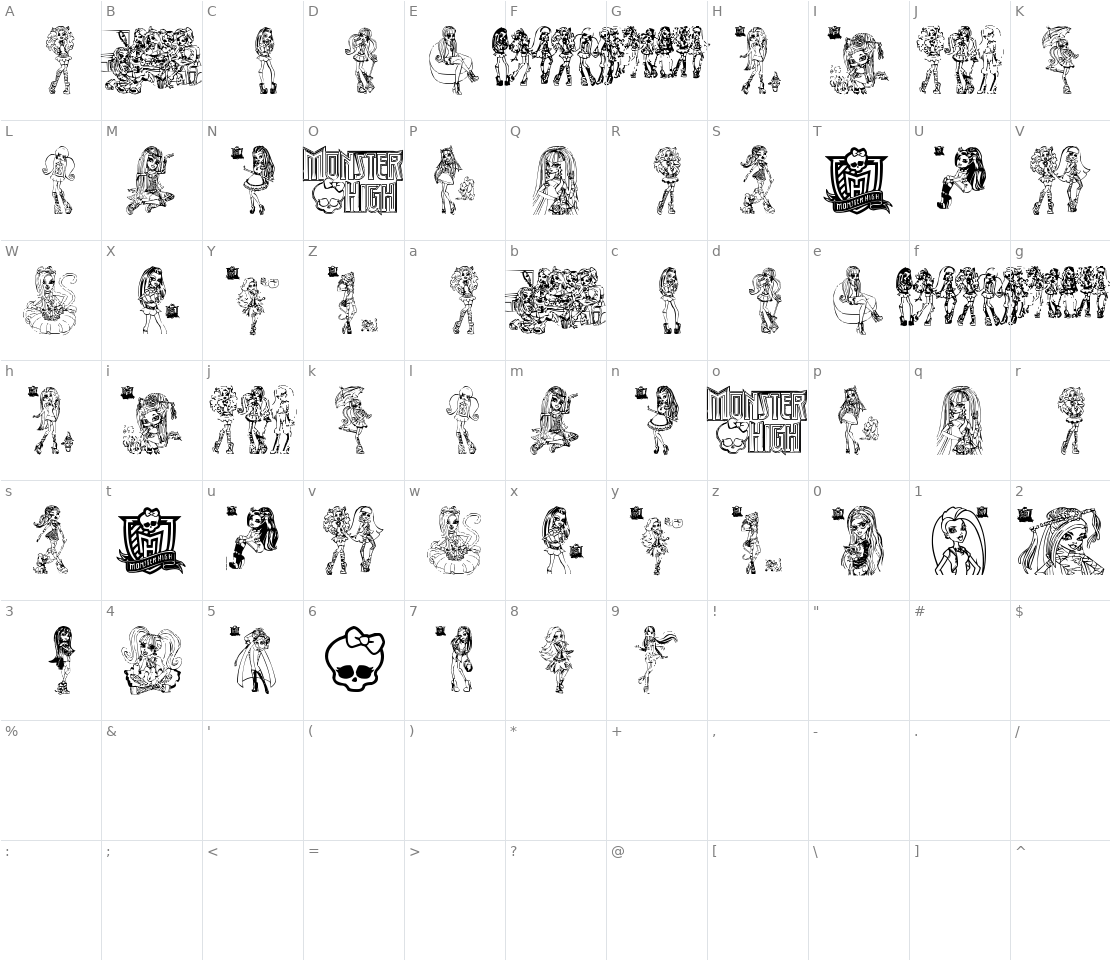
Monster High
by Ding Bang
Monster High is a dingbat font from Ding Bang featuring a set of cartoon monster and gothic-themed icons rather than traditional letterforms. The characters lean into a playful Halloween aesthetic, with stylized creatures and spooky motifs that feel more cute than creepy. Useful for themed invitations, seasonal graphics, and kid-friendly horror projects where you need quick decorative elements without illustrating from scratch.